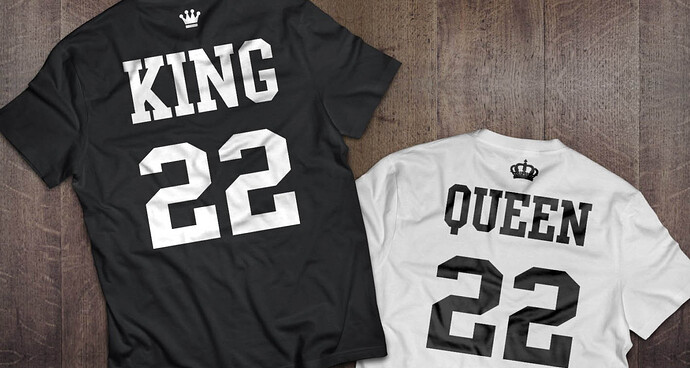
There are three seemingly identical fonts on Dafont that likely fit the image.
Of those three, the font Porn Star Academy has the fuller character set. Free for personal use.
Limbus has an extremely limited character set, free only for personal use and have no idea if the commercial version has a fuller character set.
College is 100% free, has several weights and only a basic character set.
Well, almost identical! Only the first one (Porn Star Academy) has the crossbar of the /E in the correct position vertically. In the other two, there is an even split between the top and bottom, which doesnโt match the sample.